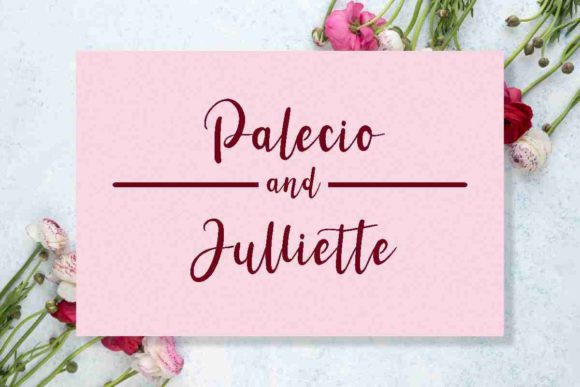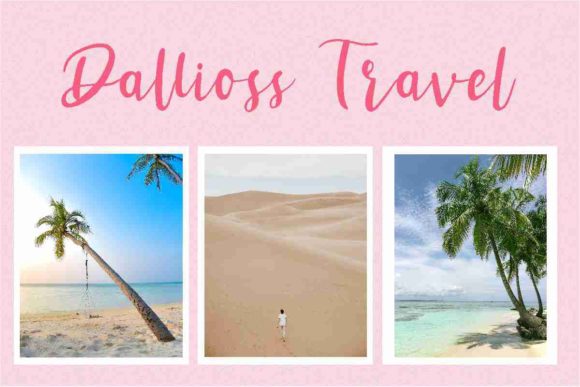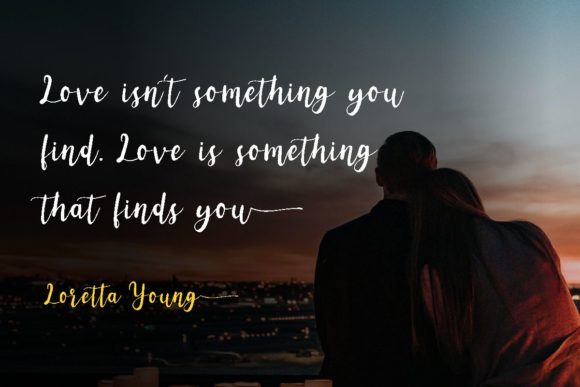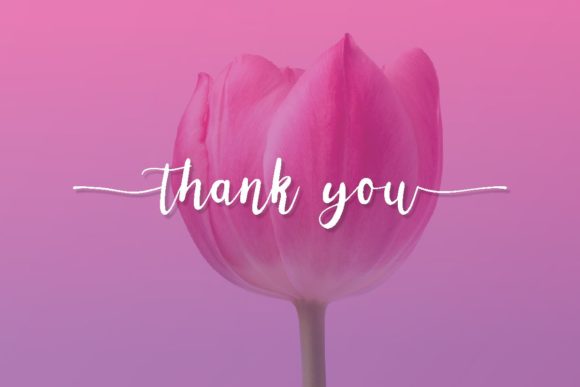
Introducing Happy Valentine Font: The Ultimate Handwritten Font for Your Creative Projects
Are you tired of using the same old fonts for your creative projects? Look no further! Happy Valentine Font is an incredibly unique handwritten font that is sure to take your designs to the next level. Masterfully designed to become a true favorite, this font has the potential to bring each of your creative ideas to the highest level.
What Makes Happy Valentine Font So Special?
Happy Valentine Font is a one-of-a-kind handwritten font that exudes warmth, personality, and charm. Its unique and elegant design makes it perfect for a wide range of creative projects, from romantic getaways and wedding invitations to DIY crafts and digital designs. The font’s distinctive features include:
• Unique and elegant handwritten design
• Perfect for romantic and whimsical projects
• Supports a wide range of languages
• Easy to read and understand
Why Choose Happy Valentine Font?
With so many fonts available, why choose Happy Valentine Font? Here are just a few reasons why designers and crafters love this font:
• Emotional Connection: Happy Valentine Font has a way of evoking emotions and creating a connection with your audience. Its warm and inviting design makes it perfect for projects that require a personal touch.
• Versatility: This font is incredibly versatile and can be used for a wide range of projects, from digital designs and social media graphics to print materials and crafts.
• Ease of Use: Happy Valentine Font is easy to read and understand, making it perfect for projects that require clear communication.
• Unique Style: This font has a unique style that sets it apart from other fonts. Its elegant and whimsical design makes it perfect for projects that require a touch of personality.
How to Use Happy Valentine Font in Your Projects
Using Happy Valentine Font in your projects is easy! Here are a few tips to get you started:
• Pair it with Other Fonts: Happy Valentine Font pairs well with other fonts, making it easy to create unique and interesting combinations.
• Experiment with Colors: The font looks great in a variety of colors, so don’t be afraid to experiment and find the perfect hue for your project.
• Use it for Headings and Titles: Happy Valentine Font is perfect for headings and titles, where its unique design can really shine.
• Add it to Your Digital Designs: This font is perfect for digital designs, including social media graphics, blog posts, and more.
Happy Valentine Font is perfect for designers and crafters who are looking for a unique and elegant font to add to their collection. Whether you’re working on a romantic project or just want to add a touch of personality to your designs, this font is sure to impress.
Some popular projects that Happy Valentine Font is well-suited for include:
• Valentine’s Day cards and gifts
• Romantic getaway brochures and advertisements
• DIY crafts and scrapbooking projects
• Digital designs, including social media graphics and blog posts
In conclusion, Happy Valentine Font is an incredibly unique and elegant handwritten font that is sure to take your creative projects to the next level. With its warm and inviting design, versatility, and ease of use, this font is perfect for designers and crafters who are looking for a font that can add a touch of personality to their work.